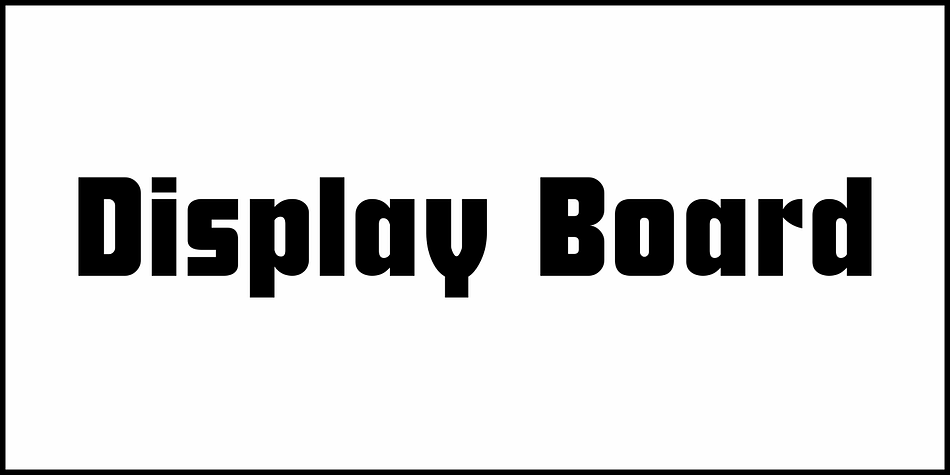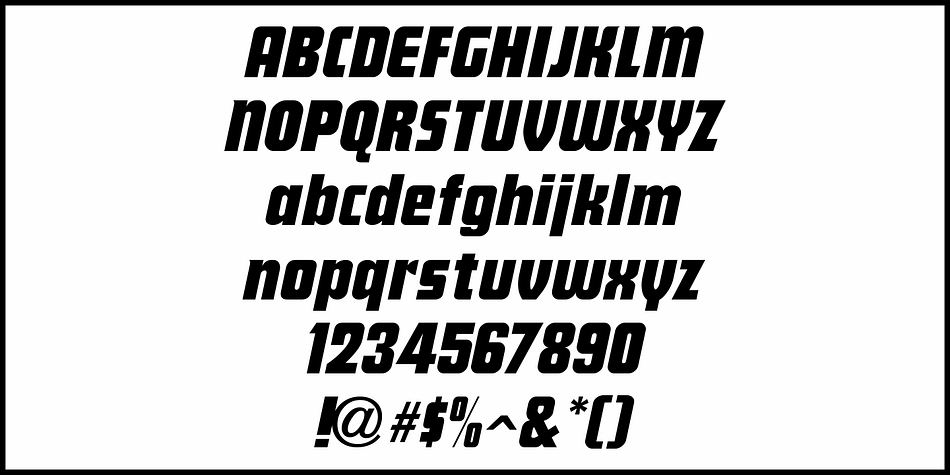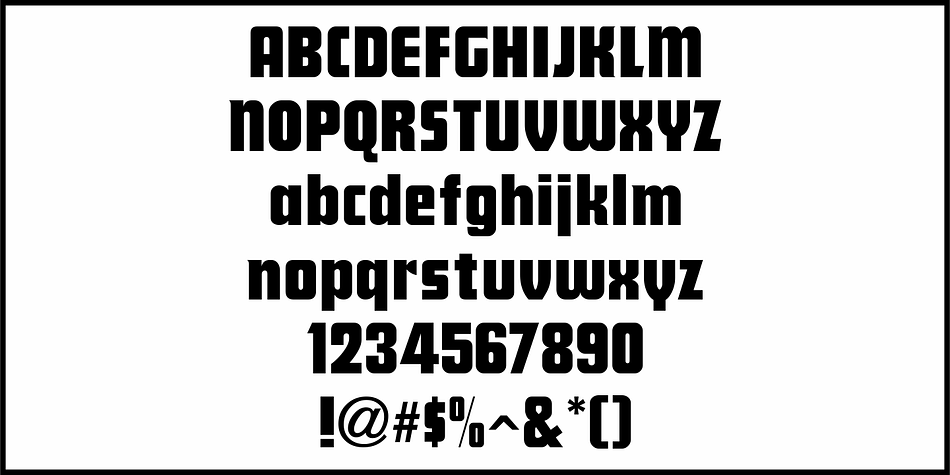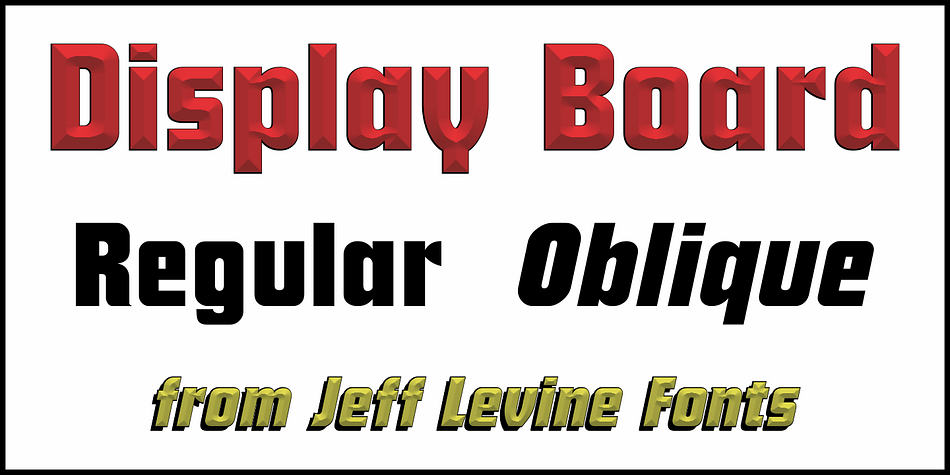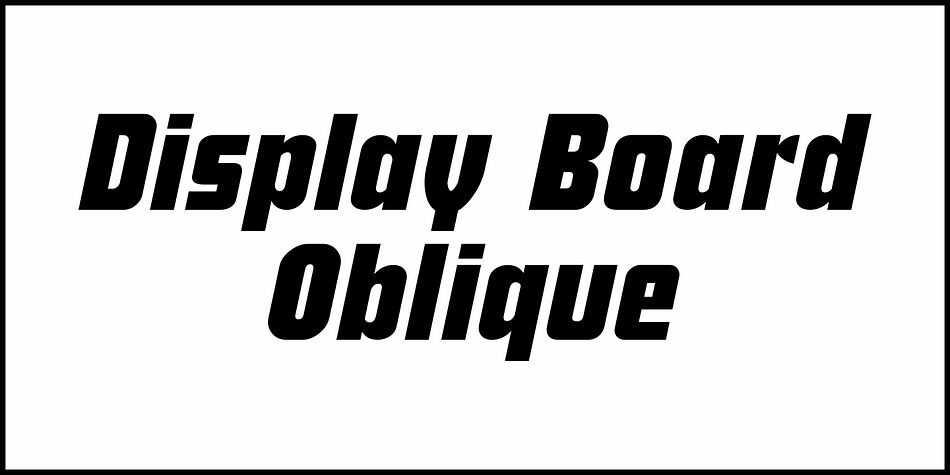
Display Board JNL
Designed by Jeff Levine, Display Board JNL is a display sans font family. This typeface has two styles and was published by Jeff Levine Fonts.
Display Board JNL is based on Futura Display, which was designed in 1932 by Paul Renner as an extension of his original (1927) Futura family of typefaces.
According to Wikipedia, the font was developed as a typeface by the Bauer Type Foundry, in competition with Ludwig & Mayer’s seminal Erbar typeface of 1926
Display Board JNL is available in both regular and oblique versions.